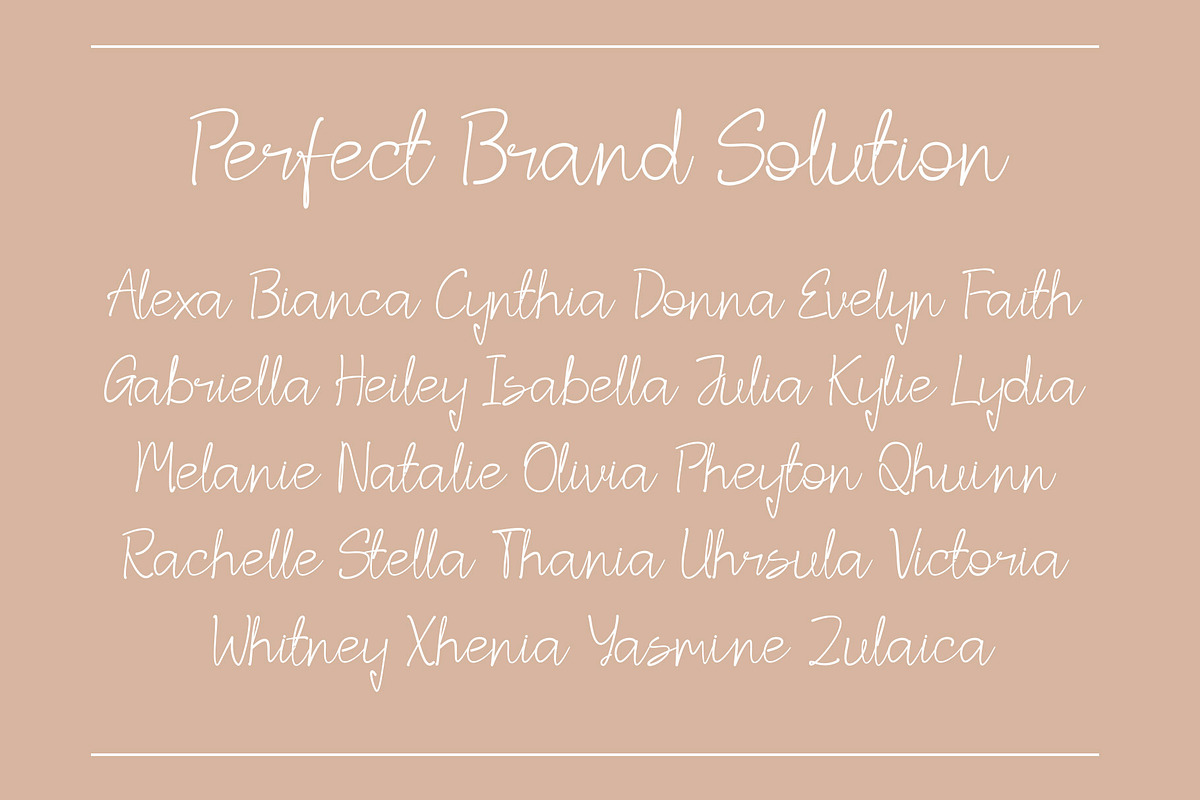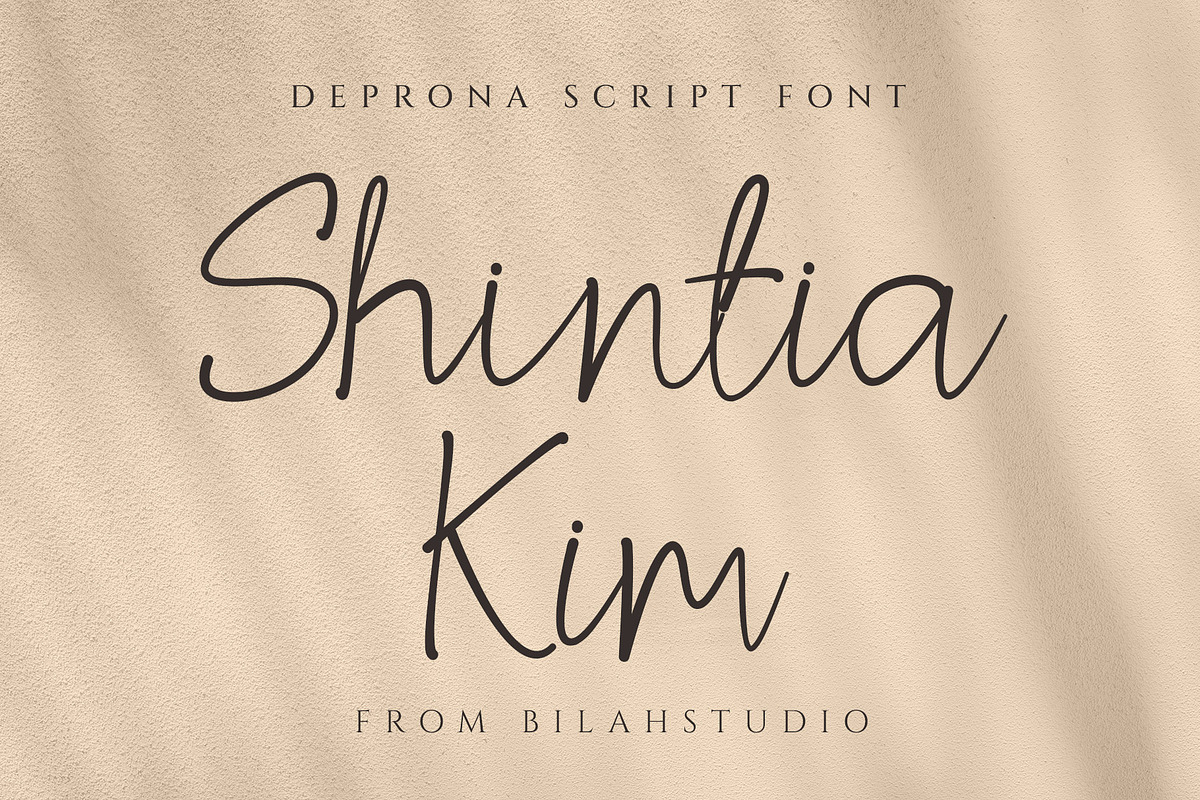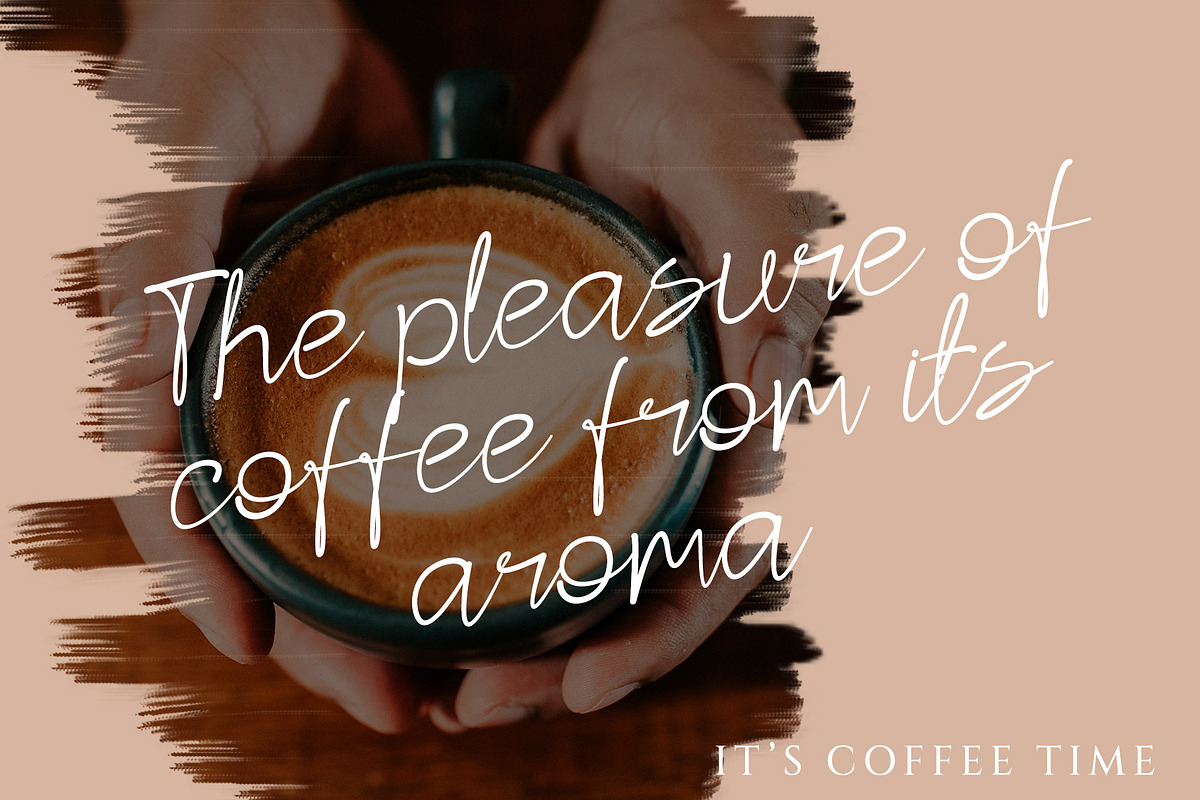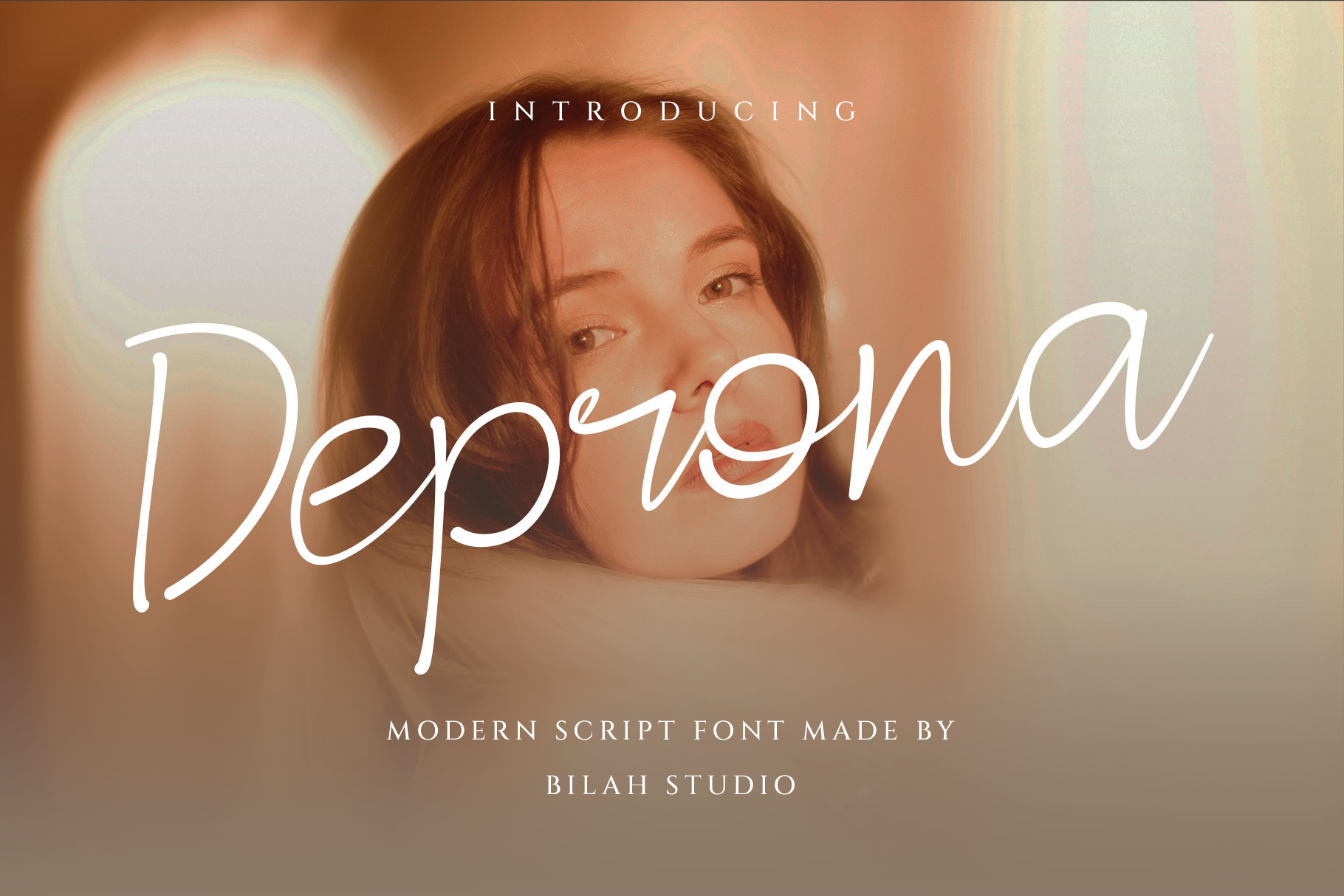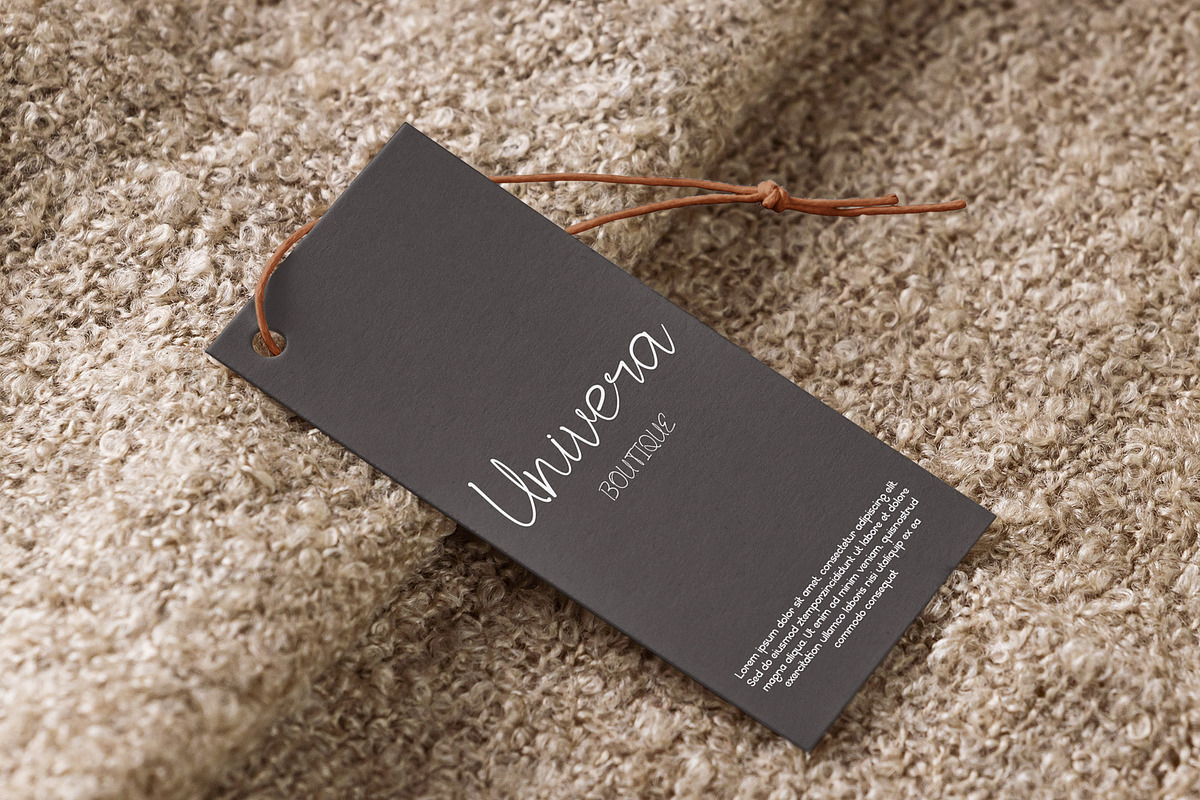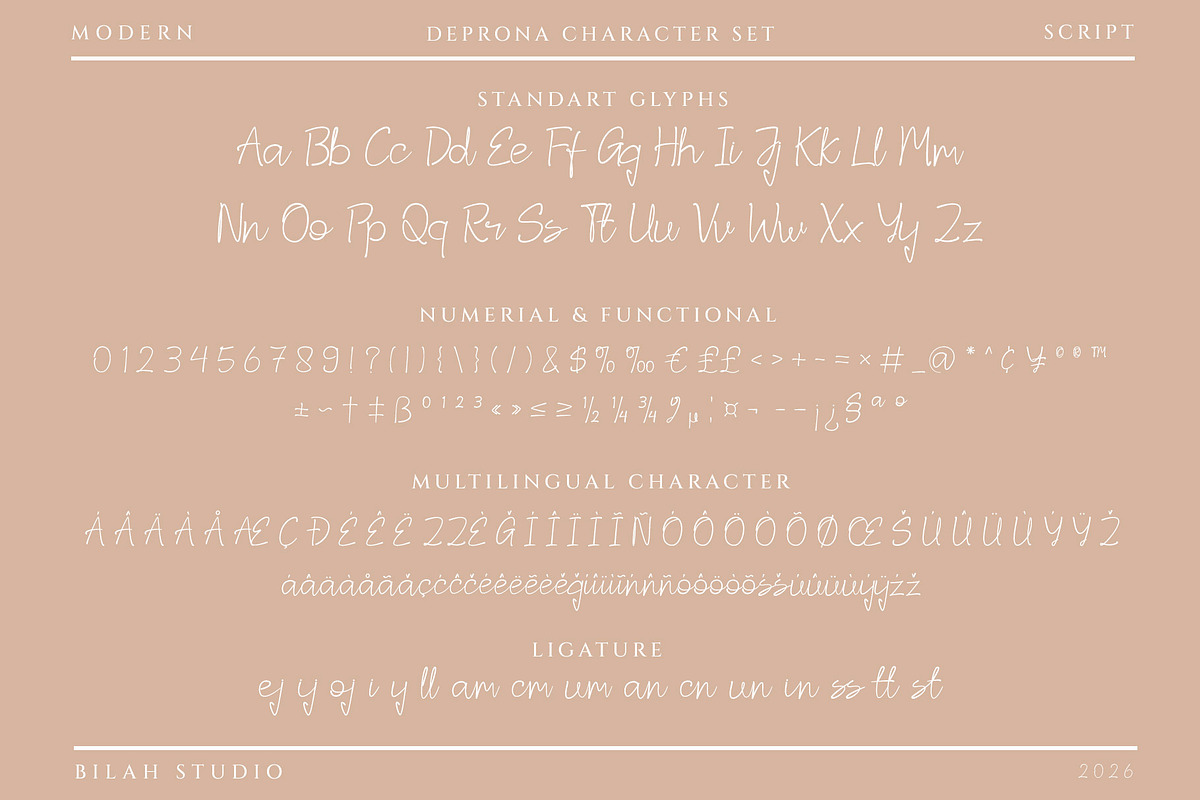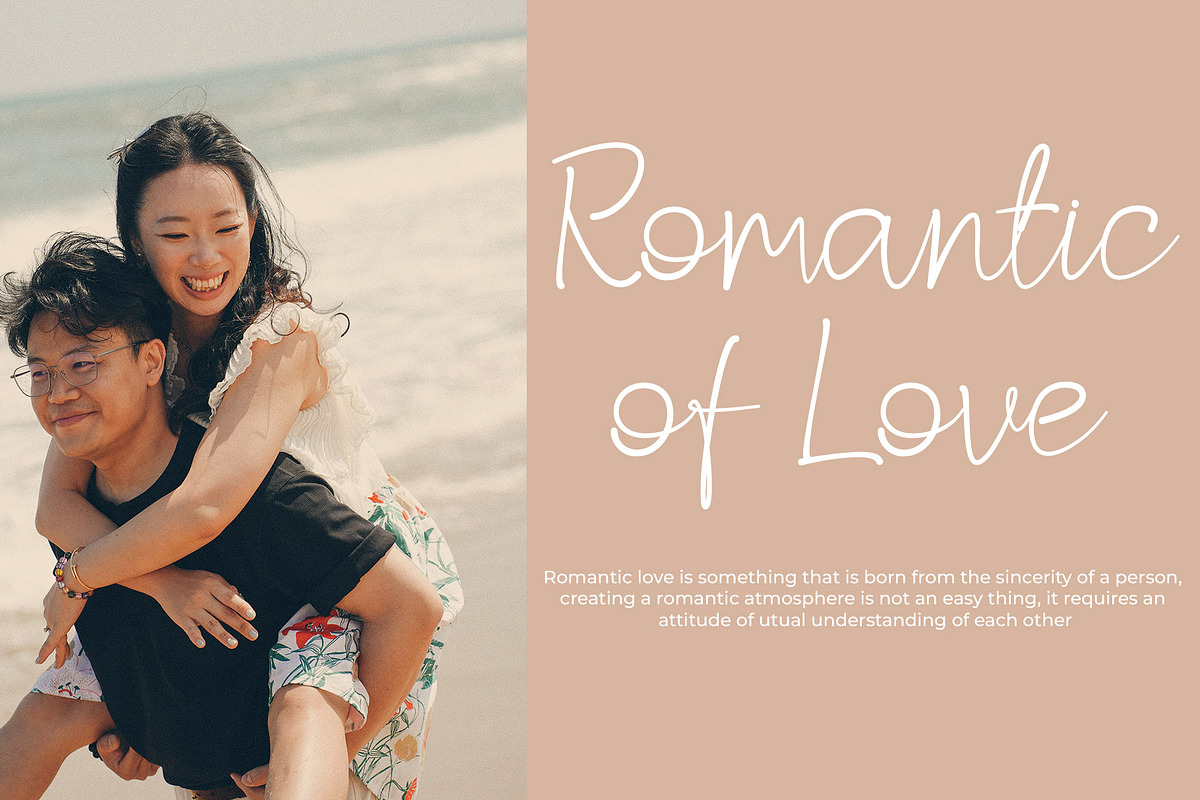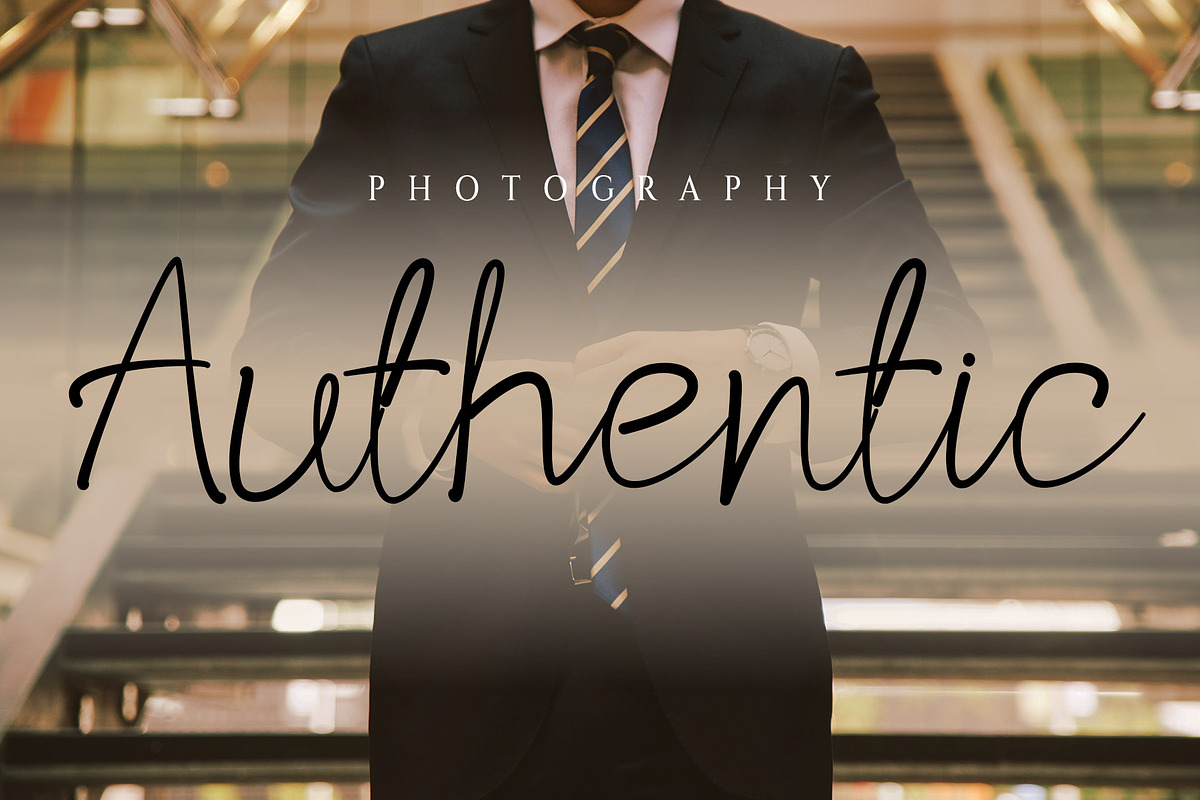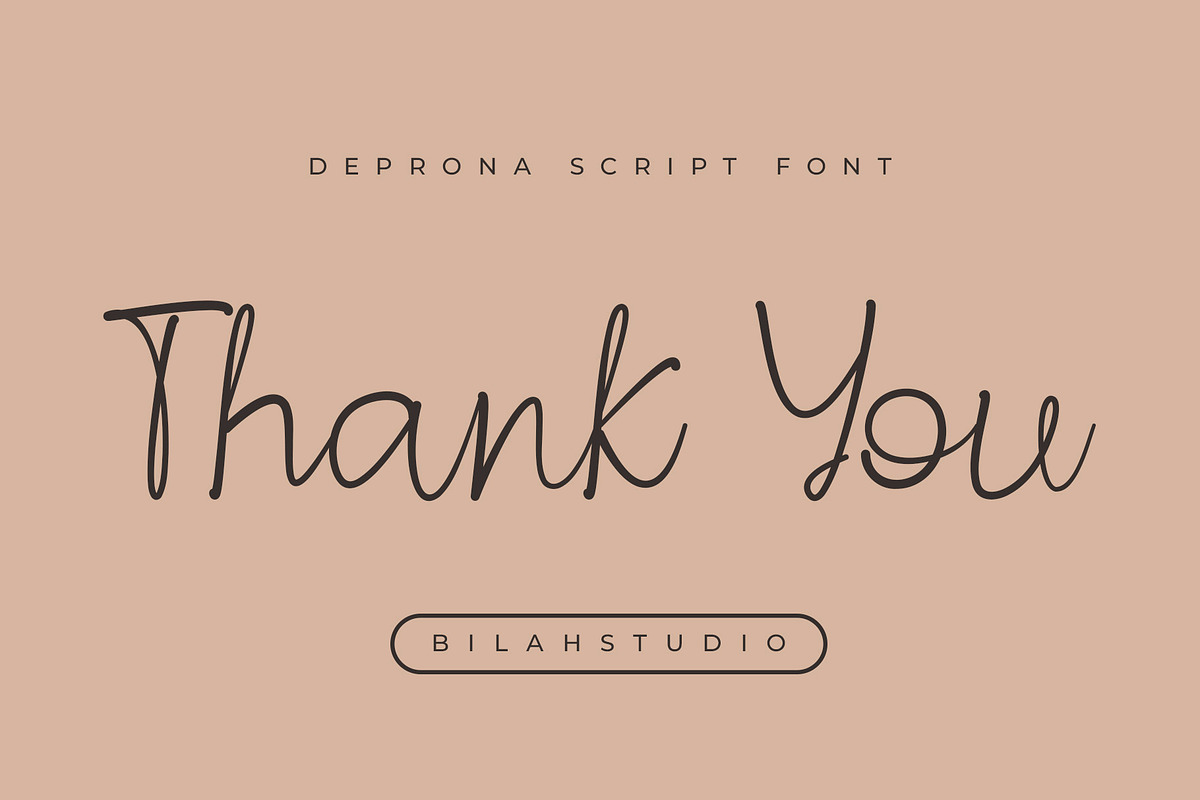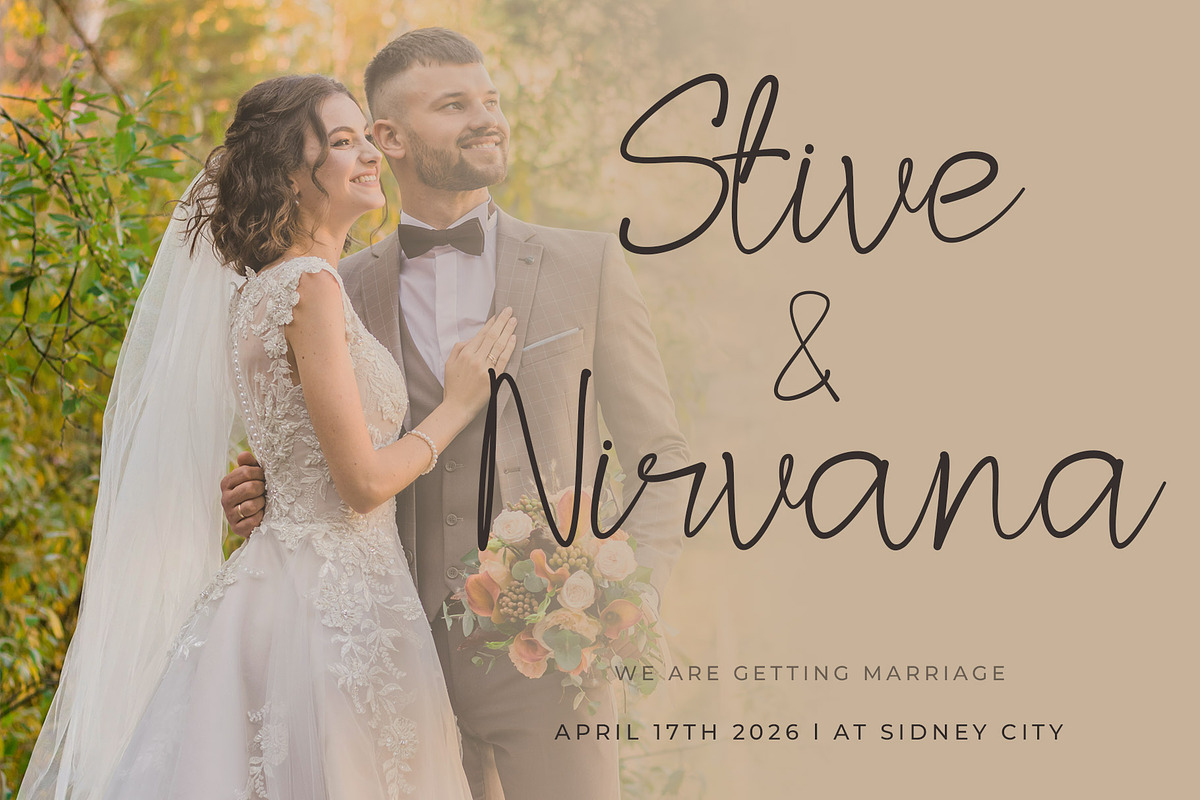
Deprona - Modern Script Font
Hello Ladies and Gentlemen! Introducing a handwritten and Latin-style font called Deprona. This font looks elegant, classy, easy to read, stylish, attractive, and easy to use. Deprona comes with OpenType features such as multilingual, ligatures, contextual, suitable for signature logos, wedding invitations, romantic quotes, logotypes, posters, social media, book covers, t-shirt designs, packaging, and more.
- Standart letter A-Z and a-z